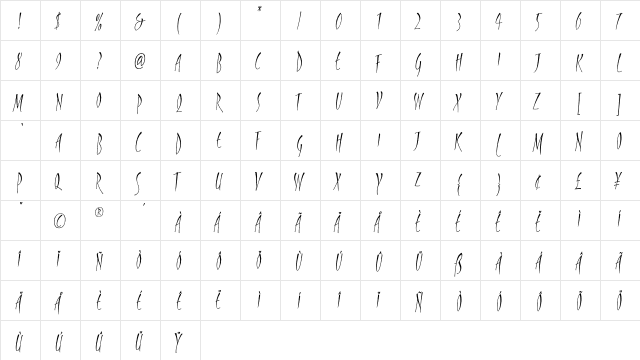
Songlines Regular
Design Context for Songlines Typeface
Songlines is a composed and adaptable typeface that performs quietly and consistently across a wide range of design contexts.
Pro Tip: Use Songlines in both headline and body roles to test its range before committing to a single application.